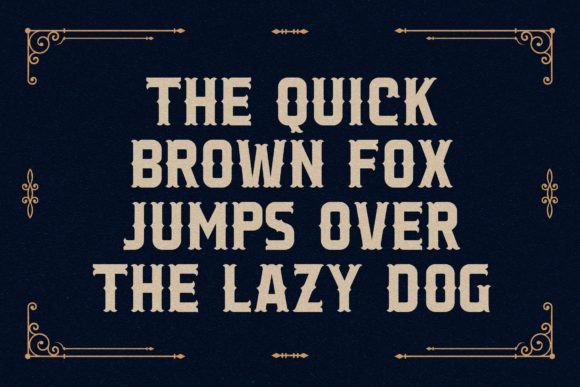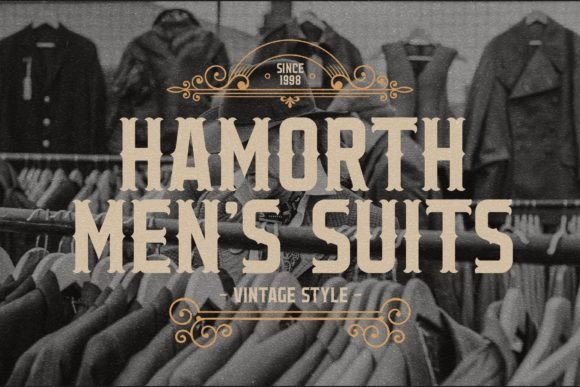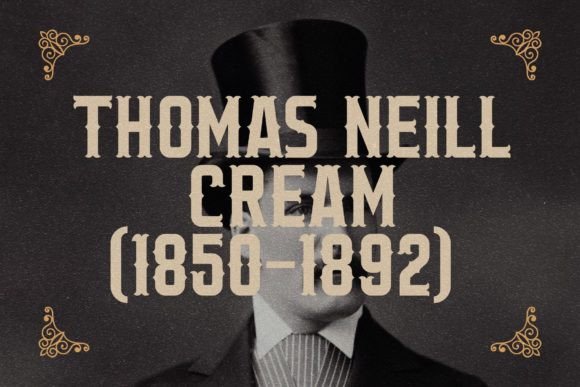
Introducing Chord Magical Font: A Vintage Typeface for Timeless Designs
In the world of typography, fonts play a crucial role in conveying the tone and aesthetic of a design. For designers and crafters looking to add a touch of nostalgia to their work, Chord Magical Font is an excellent choice. This vintage typeface is inspired by old-school design and features bold, bifurcated serifs that add a decorative flair to letterforms.
The Charm of Chord Magical Font
Chord Magical Font is a decorative typeface that is perfect for creating vintage or old-school themed designs. The font’s bold, bifurcated serifs give it a unique and eye-catching appearance that is sure to grab attention. Whether you’re designing a logo, creating a print, or crafting a sign, Chord Magical Font is a versatile choice that can be used for a wide range of applications.
Uses for Chord Magical Font
The possibilities for using Chord Magical Font are endless. Here are some ideas to get you started:
- Vintage Logos: Create a logo that evokes a sense of nostalgia and classic charm. Chord Magical Font is perfect for designing logos that require a bold, eye-catching font.
- Mugs and Water Bottles: Add a personal touch to your ceramic or glassware designs with Chord Magical Font. The font’s decorative serifs will make your designs stand out.
- Embroidery and Stitching: Use Chord Magical Font to create custom embroidery designs for clothing, fabric, or other materials.
- Prints and Posters: Create stunning prints and posters with Chord Magical Font. The font’s bold appearance makes it perfect for headlines and titles.
- Packaging and Labels: Add a touch of elegance to your packaging designs with Chord Magical Font. The font’s vintage feel is perfect for product labels and packaging.
- Cards and Invitations: Create custom cards and invitations with Chord Magical Font. The font’s decorative serifs will add a special touch to your designs.
- Signage and Displays: Use Chord Magical Font to create eye-catching signage and displays. The font’s bold appearance makes it perfect for outdoor or indoor displays.
Why Choose Chord Magical Font?
So, why choose Chord Magical Font for your design projects? Here are a few reasons:
- Unique and Eye-Catching: Chord Magical Font features bold, bifurcated serifs that give it a unique and eye-catching appearance.
- Vintage Charm: The font’s vintage feel is perfect for creating designs that evoke a sense of nostalgia and classic charm.
- Versatile: Chord Magical Font can be used for a wide range of applications, from logos and prints to packaging and signage.
Tips for Using Chord Magical Font
Here are a few tips for using Chord Magical Font effectively:
- Use it Sparingly: Chord Magical Font is a bold font, so use it sparingly to avoid overwhelming your design.
- Pair it with Other Fonts: Pair Chord Magical Font with other fonts to create a unique and interesting contrast.
Chord Magical Font is a versatile and eye-catching typeface that is perfect for designers and crafters looking to add a touch of nostalgia to their work. With its bold, bifurcated serifs and vintage charm, Chord Magical Font is a great choice for a wide range of applications. Whether you’re designing a logo, creating a print, or crafting a sign, Chord Magical Font is sure to make your designs stand out.